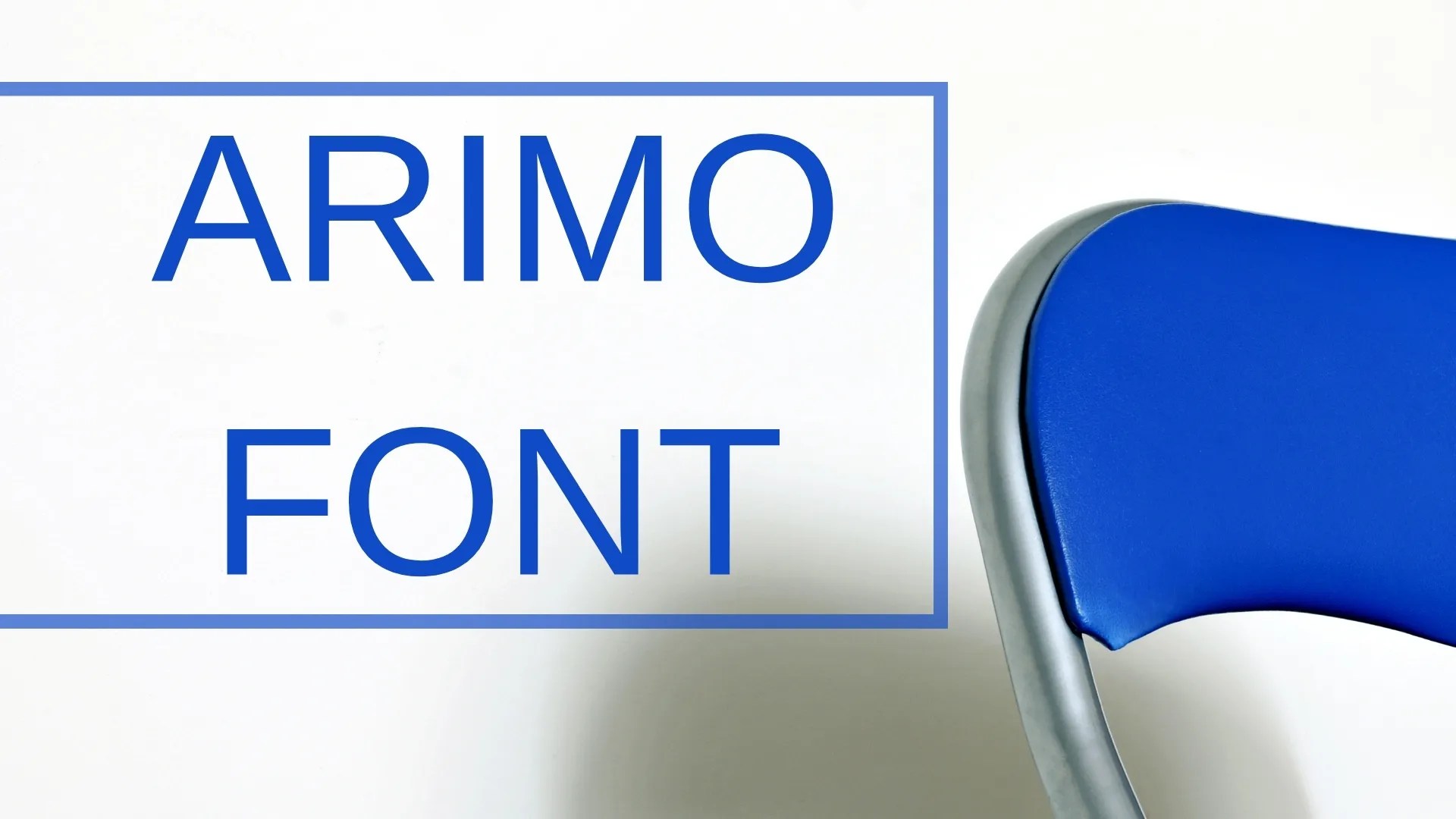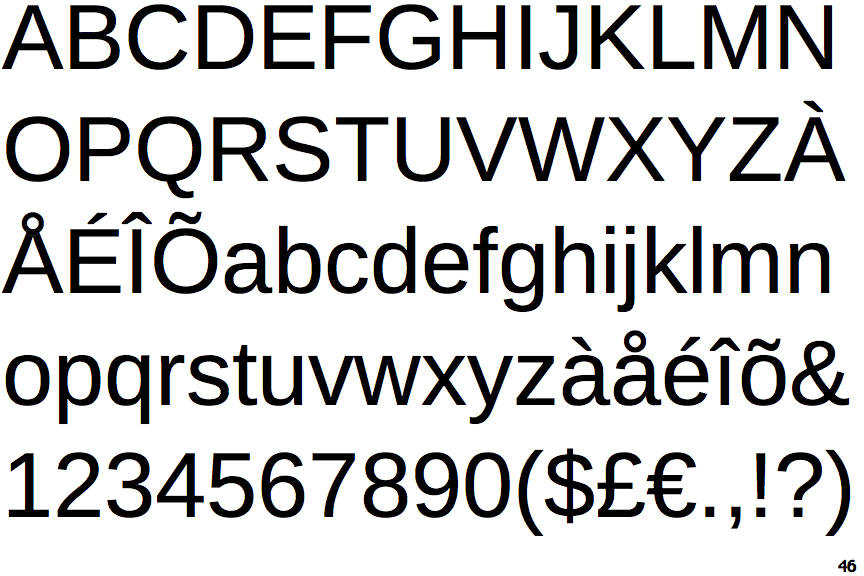
Is Arimo A Free Font . For information regarding other uses of. Arimo was designed by steve matteson as an innovative, refreshing sans serif design that is metrically compatible with arial™. Arimo is another creation of steve matteson aimed at being modern sans serif font with metrical lists compatible with arial. You're free to use it with your adobe fonts account just as you would any other font in the adobe fonts library. Download and install the arimo font by steve matteson. The arimo font has been downloaded 99,956 times. Download arimo font family · free for commercial use · arimo was designed by steve matteson as an innovative, refreshing sans serif design that is metrically compatible with arial™.
For information regarding other uses of. Download and install the arimo font by steve matteson. The arimo font has been downloaded 99,956 times. Arimo was designed by steve matteson as an innovative, refreshing sans serif design that is metrically compatible with arial™. Download arimo font family · free for commercial use · arimo was designed by steve matteson as an innovative, refreshing sans serif design that is metrically compatible with arial™. Arimo is another creation of steve matteson aimed at being modern sans serif font with metrical lists compatible with arial. You're free to use it with your adobe fonts account just as you would any other font in the adobe fonts library.
Is Arimo A Free Font Arimo was designed by steve matteson as an innovative, refreshing sans serif design that is metrically compatible with arial™. Arimo is another creation of steve matteson aimed at being modern sans serif font with metrical lists compatible with arial. For information regarding other uses of. Download arimo font family · free for commercial use · arimo was designed by steve matteson as an innovative, refreshing sans serif design that is metrically compatible with arial™. Download and install the arimo font by steve matteson. The arimo font has been downloaded 99,956 times. Arimo was designed by steve matteson as an innovative, refreshing sans serif design that is metrically compatible with arial™. You're free to use it with your adobe fonts account just as you would any other font in the adobe fonts library.
Arimo Bold Italic font Free fonts on Creazilla Is Arimo A Free Font Download arimo font family · free for commercial use · arimo was designed by steve matteson as an innovative, refreshing sans serif design that is metrically compatible with arial™. Arimo was designed by steve matteson as an innovative, refreshing sans serif design that is metrically compatible with arial™. The arimo font has been downloaded 99,956 times. Arimo is another creation. Is Arimo A Free Font.
Arimo Font Free Download Is Arimo A Free Font Download arimo font family · free for commercial use · arimo was designed by steve matteson as an innovative, refreshing sans serif design that is metrically compatible with arial™. Arimo was designed by steve matteson as an innovative, refreshing sans serif design that is metrically compatible with arial™. Download and install the arimo font by steve matteson. The arimo font. Is Arimo A Free Font.
Arimo Font Free Download Is Arimo A Free Font Download arimo font family · free for commercial use · arimo was designed by steve matteson as an innovative, refreshing sans serif design that is metrically compatible with arial™. The arimo font has been downloaded 99,956 times. For information regarding other uses of. Arimo is another creation of steve matteson aimed at being modern sans serif font with metrical lists. Is Arimo A Free Font.
Arimo Free SansSerif Font Fontpair Is Arimo A Free Font Download and install the arimo font by steve matteson. For information regarding other uses of. The arimo font has been downloaded 99,956 times. You're free to use it with your adobe fonts account just as you would any other font in the adobe fonts library. Download arimo font family · free for commercial use · arimo was designed by steve. Is Arimo A Free Font.
Arimo Helvetica free font Is Arimo A Free Font Download arimo font family · free for commercial use · arimo was designed by steve matteson as an innovative, refreshing sans serif design that is metrically compatible with arial™. The arimo font has been downloaded 99,956 times. For information regarding other uses of. Download and install the arimo font by steve matteson. You're free to use it with your adobe. Is Arimo A Free Font.
Arimo Free Font Download Free fonts download, Cool fonts, Fonts Is Arimo A Free Font Arimo was designed by steve matteson as an innovative, refreshing sans serif design that is metrically compatible with arial™. For information regarding other uses of. The arimo font has been downloaded 99,956 times. Download and install the arimo font by steve matteson. Download arimo font family · free for commercial use · arimo was designed by steve matteson as an. Is Arimo A Free Font.
Arimo Font Family GraphicUX Free download Font family, Fonts Is Arimo A Free Font Arimo was designed by steve matteson as an innovative, refreshing sans serif design that is metrically compatible with arial™. You're free to use it with your adobe fonts account just as you would any other font in the adobe fonts library. For information regarding other uses of. Arimo is another creation of steve matteson aimed at being modern sans serif. Is Arimo A Free Font.
Identifont Arimo Is Arimo A Free Font You're free to use it with your adobe fonts account just as you would any other font in the adobe fonts library. Download arimo font family · free for commercial use · arimo was designed by steve matteson as an innovative, refreshing sans serif design that is metrically compatible with arial™. Arimo is another creation of steve matteson aimed at. Is Arimo A Free Font.
Arimo Regular Download For Free, View Sample Text, Rating And More On Is Arimo A Free Font For information regarding other uses of. Download arimo font family · free for commercial use · arimo was designed by steve matteson as an innovative, refreshing sans serif design that is metrically compatible with arial™. You're free to use it with your adobe fonts account just as you would any other font in the adobe fonts library. Arimo is another. Is Arimo A Free Font.